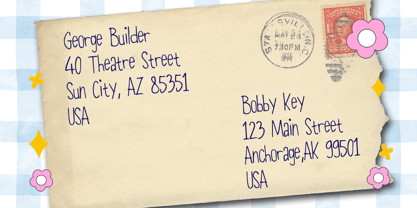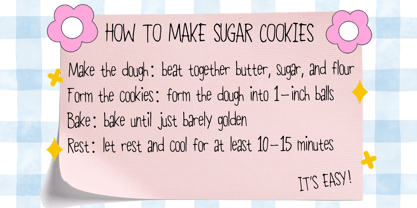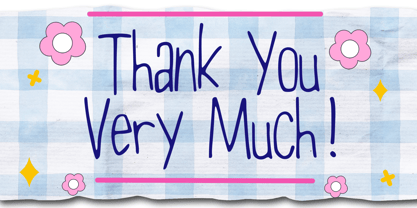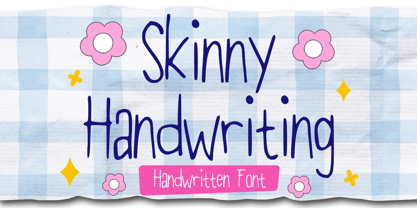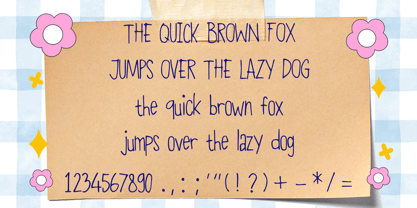
Skinny Handwriting
by Mvmet
The Skinny Handwriting Font Family was designed by Gabriel Valentinus and published by Mvmet. Skinny Handwriting contains 1 styles. More about this family
Skinny Handwriting is a skinny, tall, fun and playful handwritten pen font. It will elevate a wide range of design projects to the highest level. You can use this font for many design ideas such as stickers, t-shirt designs, amazing logo designs, magazine or book covers, comics, cartoon drawings, and many more. This font will add a super cool touch to your designs!
Designers: Gabriel Valentinus
Foundry: Mvmet